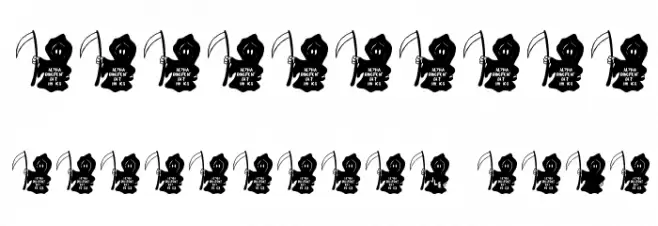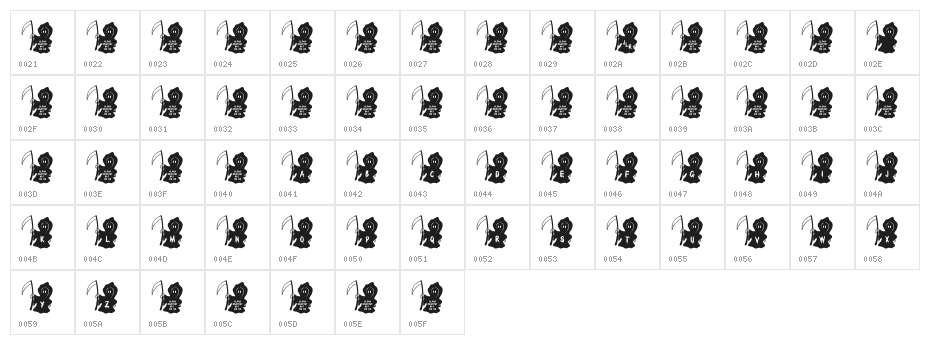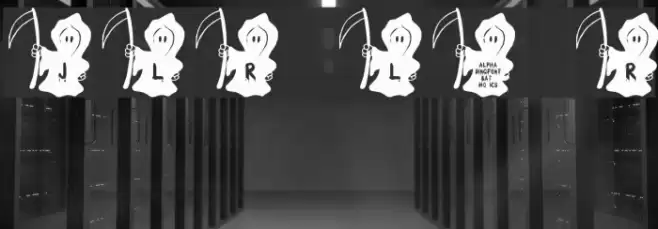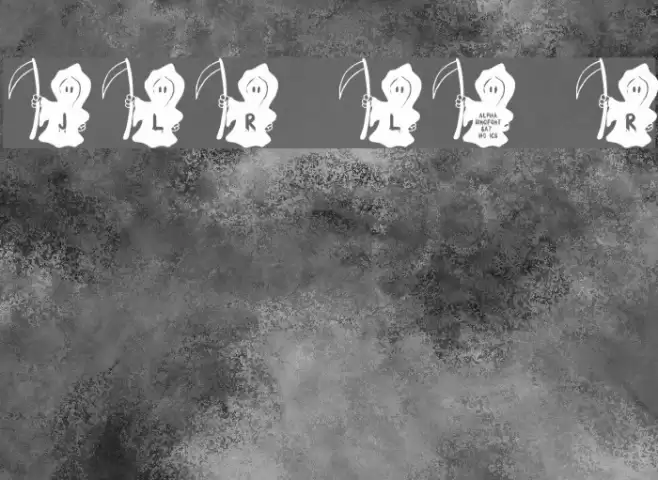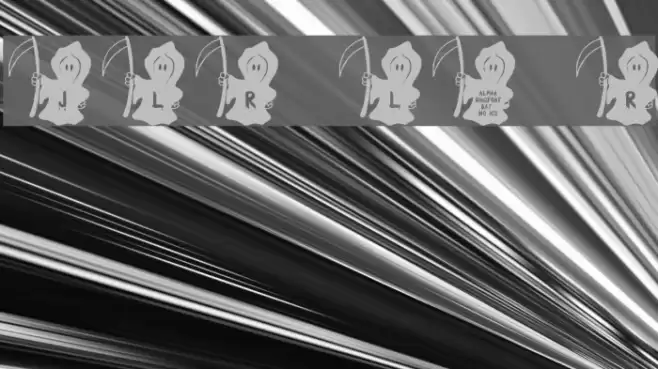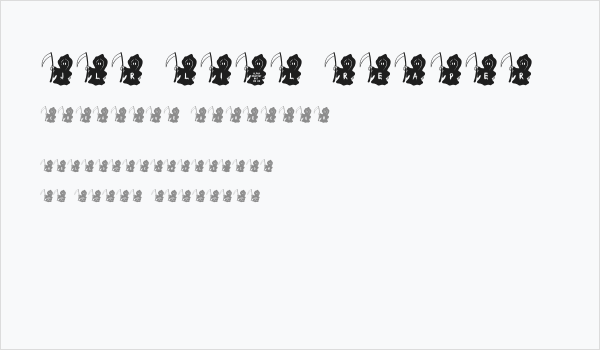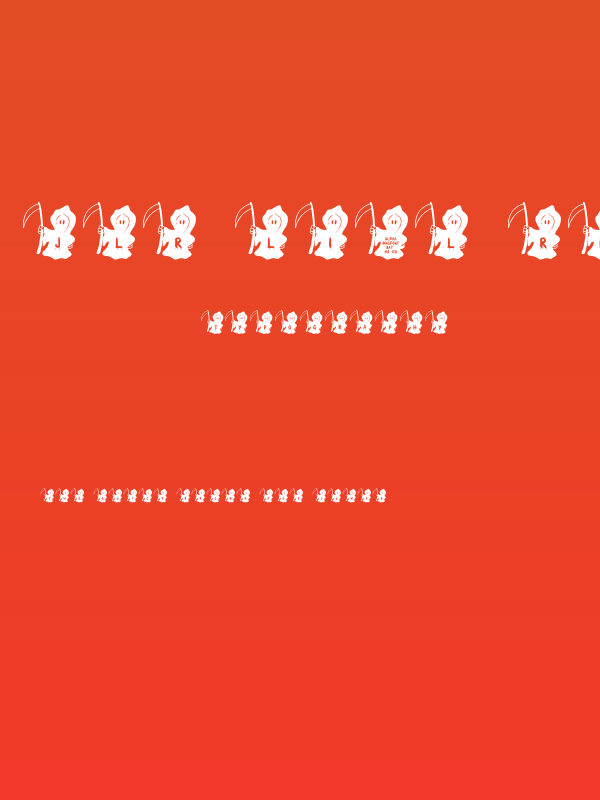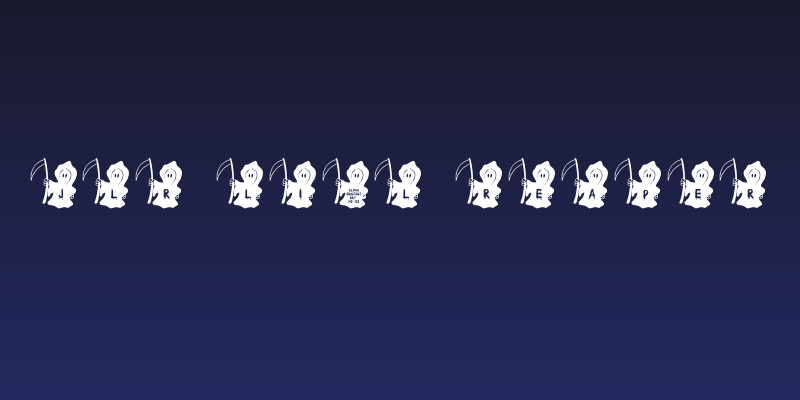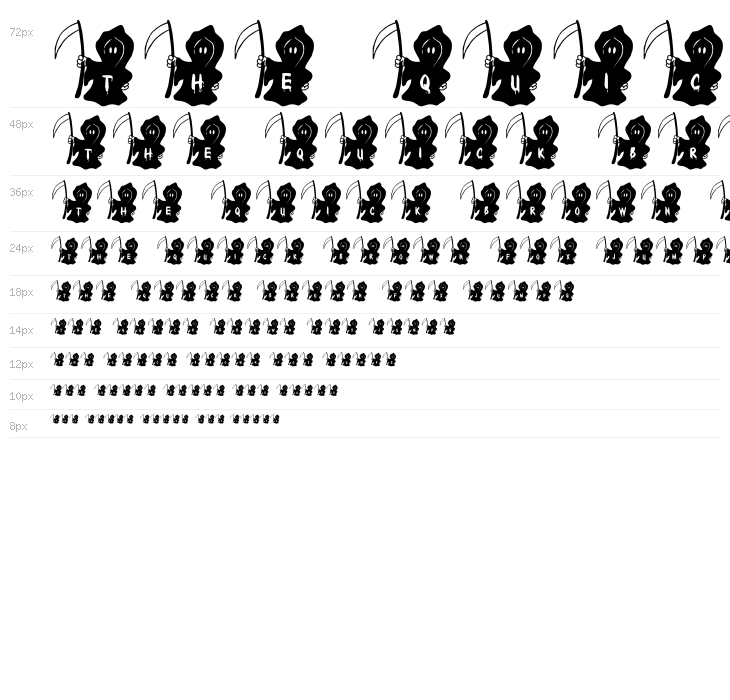
JLR Li'l Reaper Font
JLR Li'l Reaper Description
This font features a playful and whimsical design where each character is integrated into a cartoonish reaper figure. The letters are bold and easily readable, set within the body of the reaper, which adds a unique and thematic element to the text. The scythe held by the reaper adds an extra decorative touch, making the font ideal for Halloween or spooky-themed projects. The overall design is consistent across all characters, maintaining a cohesive look while providing a fun and engaging visual experience.
| Use Case | Headlines, Logos, Themed Invitations |
| Proposed Projects | Ideal for Halloween invitations, themed party decorations, children's books with a spooky theme, or any project requiring a fun, eerie touch. |